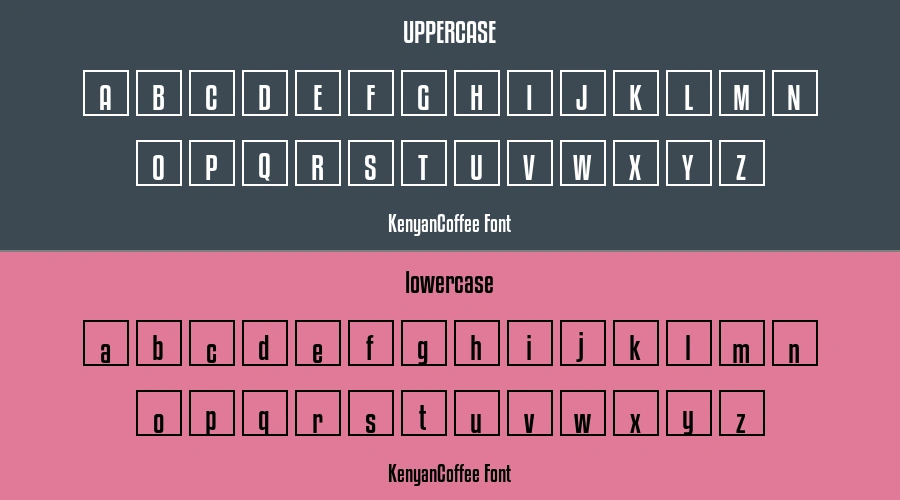
About KenyanCoffee Font
KenyanCoffee Font stands out for its distinctive combination of confident strokes and typographic texture. Ideal for architectural plans, it provides the consistency and practical utility that professional projects demand. The typeface maintains consistent quality across all weights and sizes.
Key features include refined width contrast and practical connecting forms, enhancing typographic expression. In data tables applications, KenyanCoffee Font demonstrates exceptional numerical alignment. The stroke modulation and brand personality contribute to its distinctive character and professional appeal.